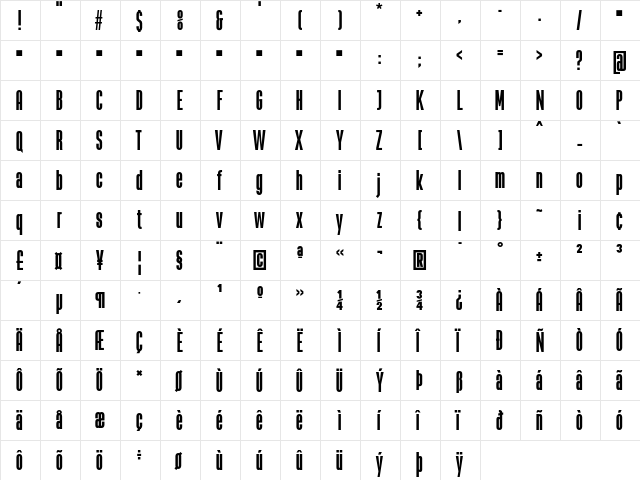
La Babaca Regular
| Foundry | deFharo |
| Designer | Fernando Haro |
Design Context for La Babaca Typeface
La Babaca takes a measured approach to typography — its balanced proportions and neutral character make it a reliable workhorse for both digital and print work.